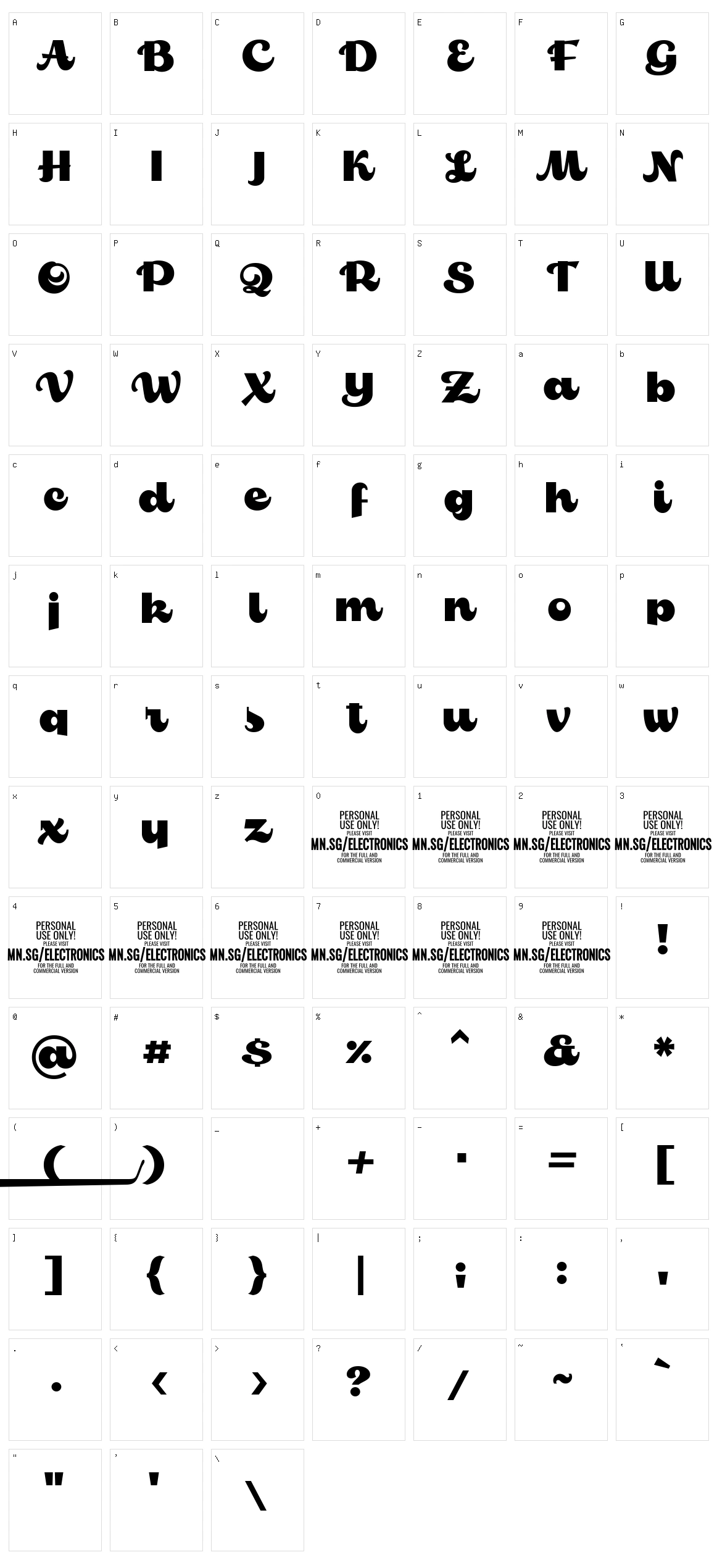
With round and clear letters, Electronics is a high quality script typeface.
It is designed and created by Måns Grebäck and has a bold and upright look.
The font contains ligatures and a lot of alternate characters.
It also supports hundreds of languages, and includes an underlined version.
Use underscore to make a swash.
Write § to make a top swash.
Example: Elec§tronics_
For the underlined version, the underscore can be used to connect the underline to the word.
Example: Writing_